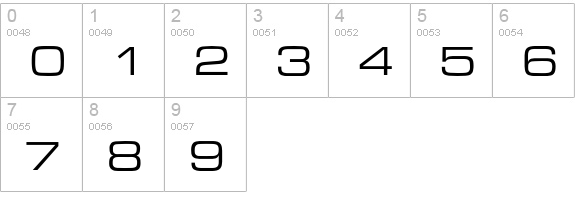
Eurostile Extended is a distinctive, extended-width variant in the Eurostile typeface family \xE2\x80\x94 well suited to design and typography projects.
Eurostile Extended is a modern, geometric sans-serif font that exudes a sense of strength and sophistication. Its extended letterforms give it a unique and eye-catching appearance, making it ideal for headlines, branding, and other design projects where a bold statement is needed. The clean lines and sharp angles of Eurostile Extended lend a contemporary and futuristic feel to any layout. This versatile font is perfect for a wide range of applications, from print to digital, thanks to its legibility and distinct style. Whether you're designing a sleek magazine layout or a cutting-edge website, Eurostile Extended will provide a strong visual impact that commands attention. And the best part? Eurostile Extended is available for free download at FontsMarket.com, making it easily accessible to designers and creatives looking to elevate their projects with a modern and impactful typeface. Don't miss out on the opportunity to add Eurostile Extended to your font library today!